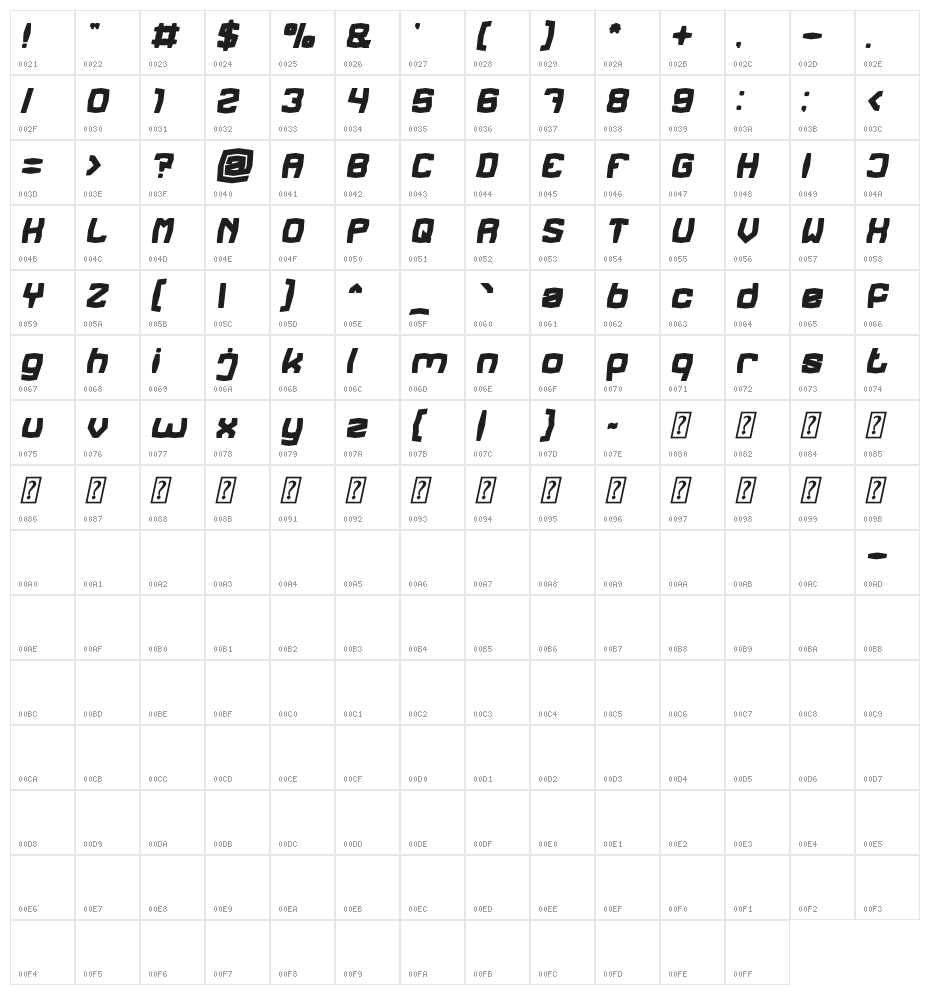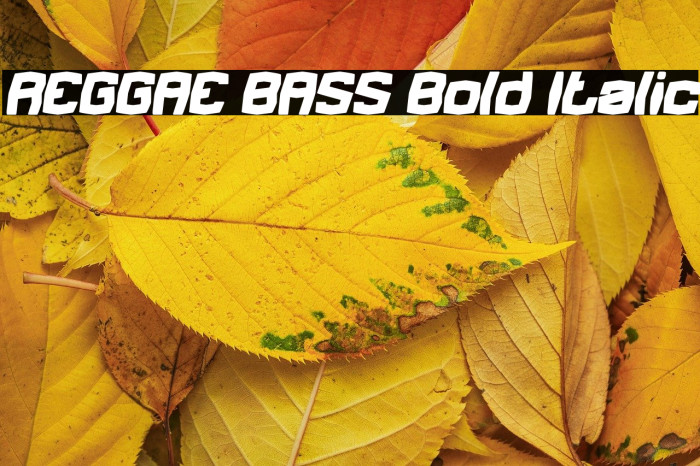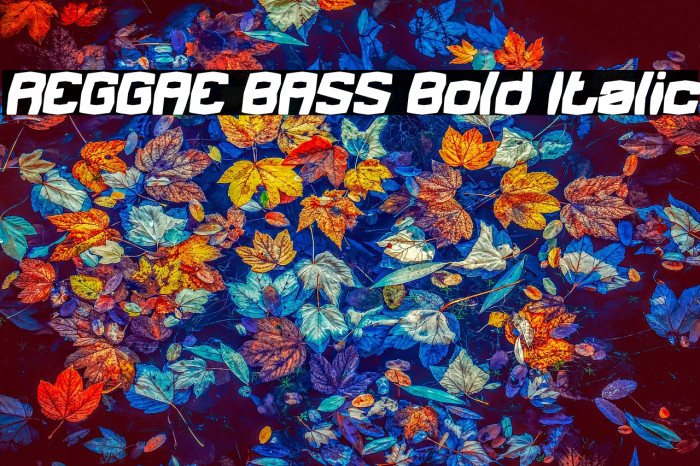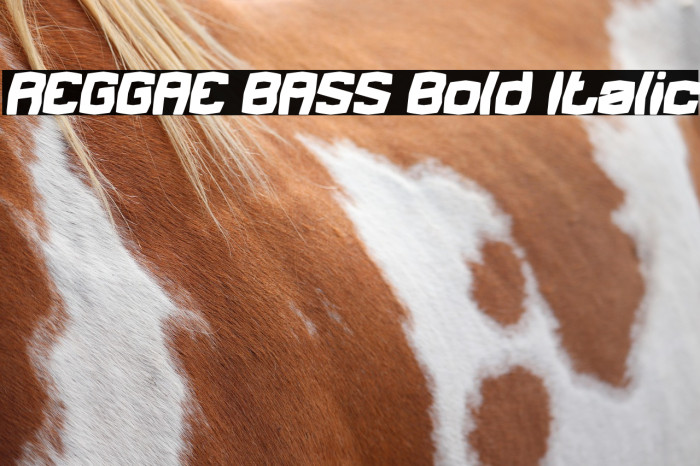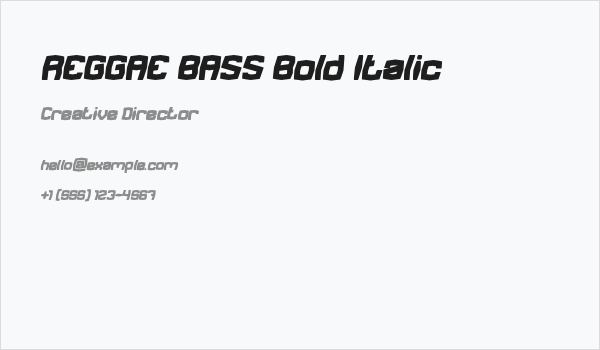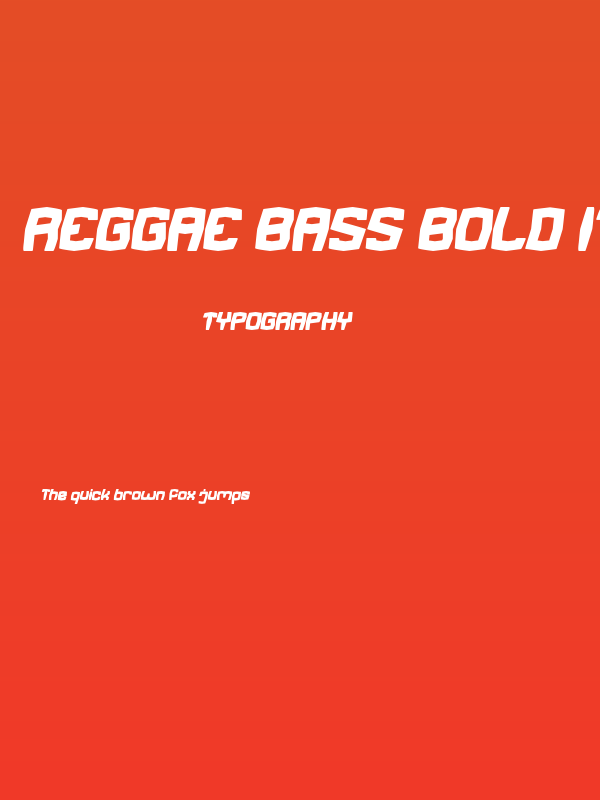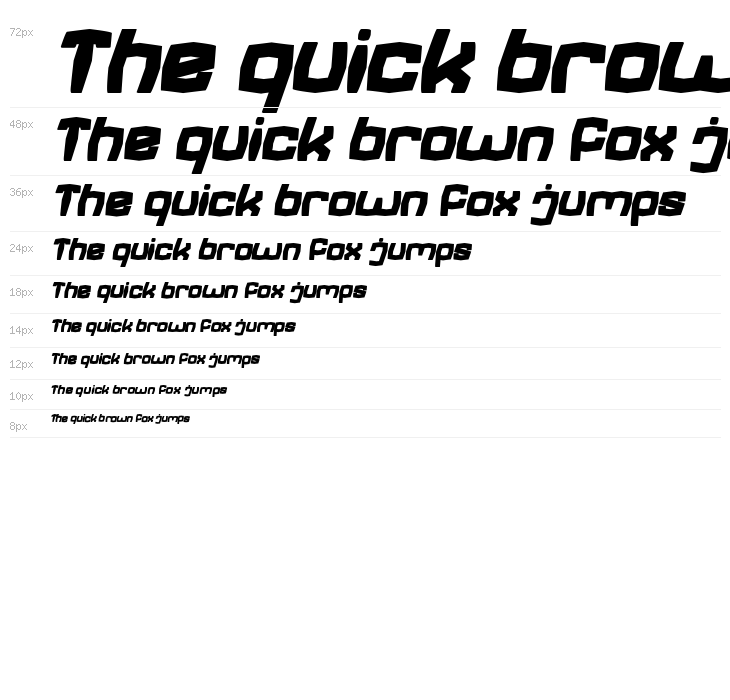
REGGAE BASS Bold Italic Font
REGGAE BASS Bold Italic Description
This font features a bold and italicized style with a distinct reggae-inspired flair. The characters are robust and dynamic, with a playful yet assertive presence. Each letter leans forward, adding a sense of movement and rhythm, reminiscent of reggae music's lively beats. The strokes are thick and consistent, providing a strong visual impact. The overall design is slightly irregular, giving it a handcrafted feel that enhances its unique character. This font is perfect for projects that require a bold statement with a touch of cultural influence.
| Proposed Projects | Ideal for music album covers, event posters, branding for cultural festivals, and any project seeking a bold, rhythmic aesthetic. |